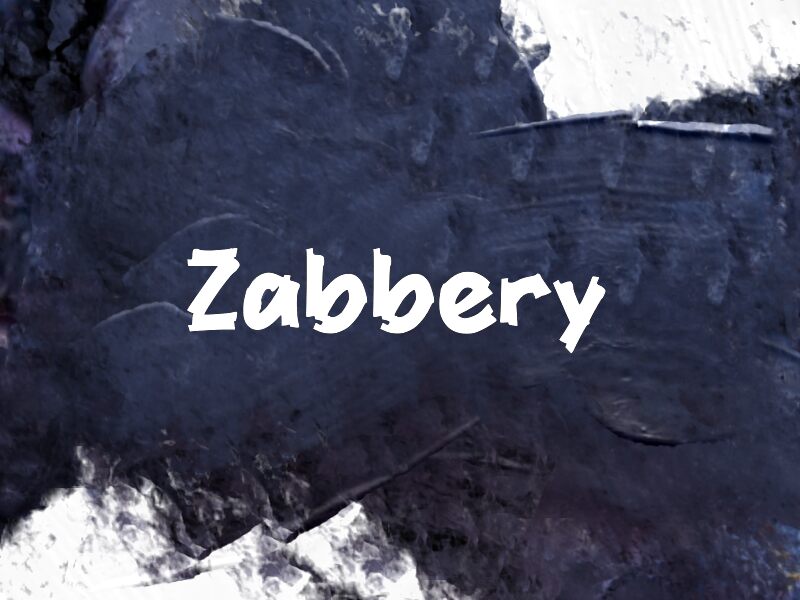
Zabbery by Wep is a free brush font defined by blunt, paint-packed strokes and rough shaved edges that make each letter look cut with a loaded marker rather than drawn cleanly. The texture stays consistent across the set, with chipped corners and small bite marks that keep the lettering raw, dark, and handmade.
That gritty surface gives short text a natural role on music posters, streetwear graphics, skate decals, zine covers, and loud social headers. It can also anchor packaging or event flyers where a neat script would feel too polished, because the brush damage is part of the font's voice, not an added effect.